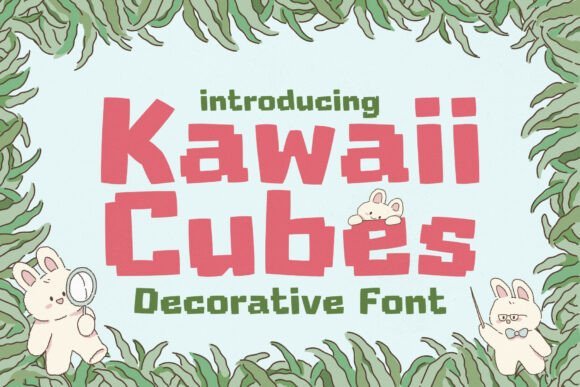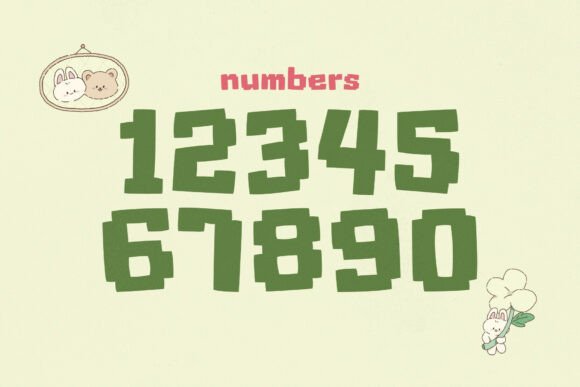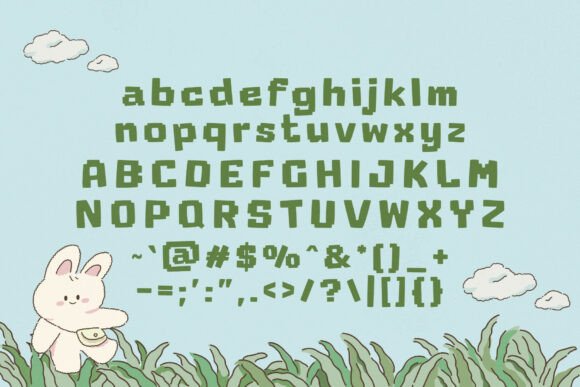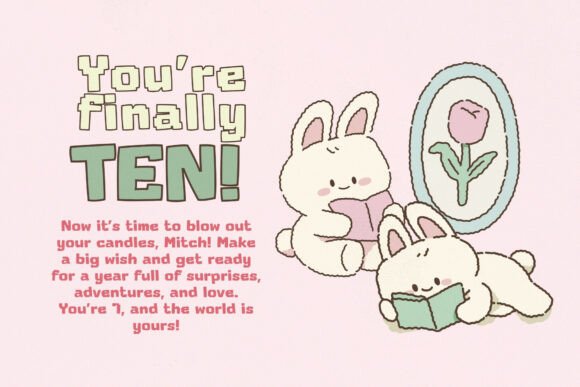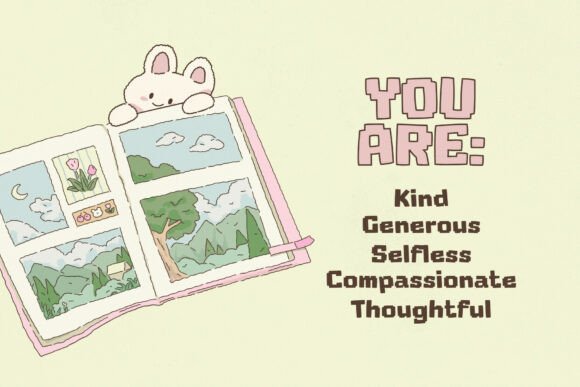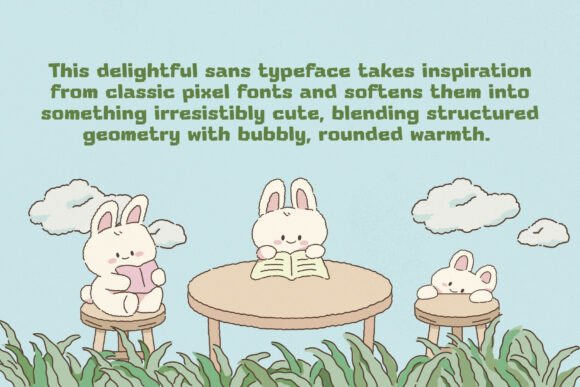
Introduction to Kawaii Cubes Font Font
Fonts play a crucial role in design, and the Kawaii Cubes Font font is a typeface that brings both character and versatility to any project. Whether you’re working on a branding project, a website, or a print design, the Kawaii Cubes Font font offers a unique style that can elevate your work.
Kawaii Cubes is where playful charm meets pixel-perfect personality.
This delightful sans typeface takes inspiration from classic pixel fonts and softens them into something irresistibly cute, blending structured geometry with bubbly, rounded warmth Every letter feels like a tiny characterโcrafted to spark joy, radiate friendliness, and bring a sense of lighthearted fun to your designs.
Why Choose Kawaii Cubes Font Font?
The Kawaii Cubes Font font is more than just a typeface โ it’s a design tool that helps you communicate your message with style and clarity. Its unique character set and versatile design make it suitable for a wide range of applications, from elegant invitations to bold headlines.
With its carefully crafted letterforms and balanced proportions, the Kawaii Cubes Font font ensures readability and visual appeal across all mediums.
What makes Kawaii Cubes Font font special?
The Kawaii Cubes Font font stands out with its unique design, exceptional readability, and versatility across various design applications.